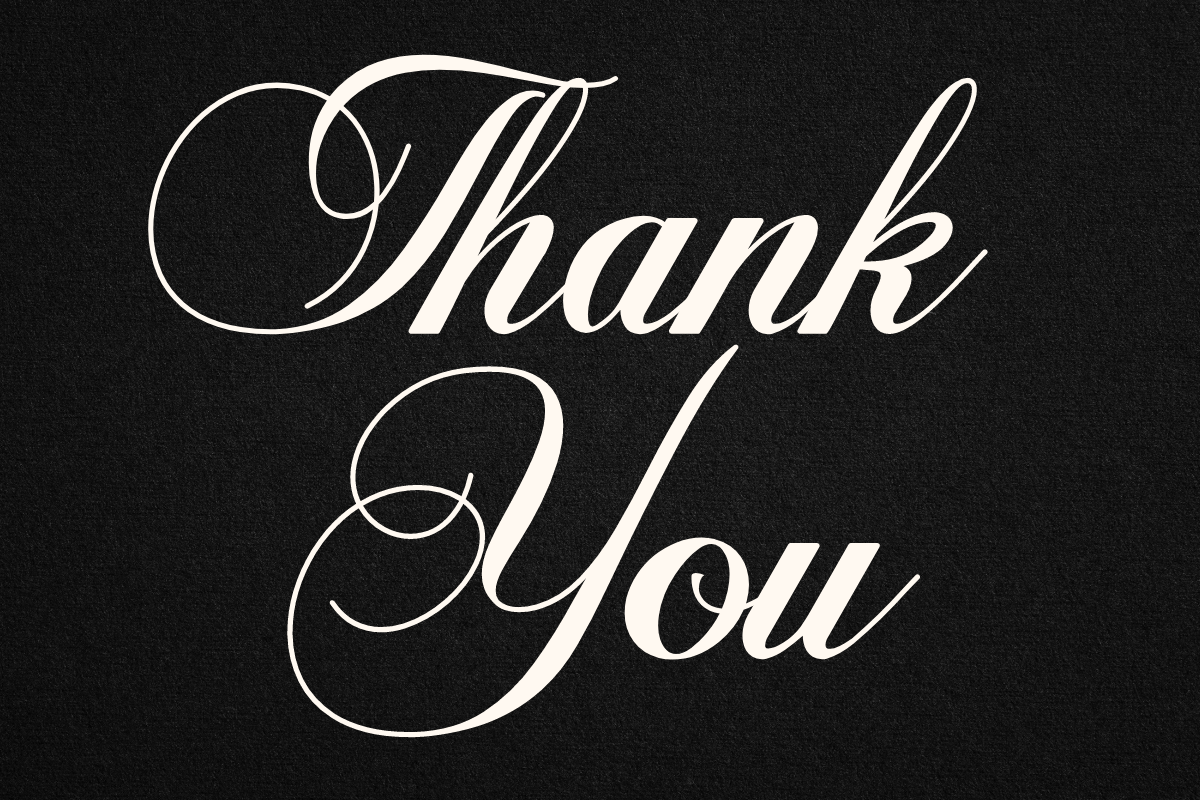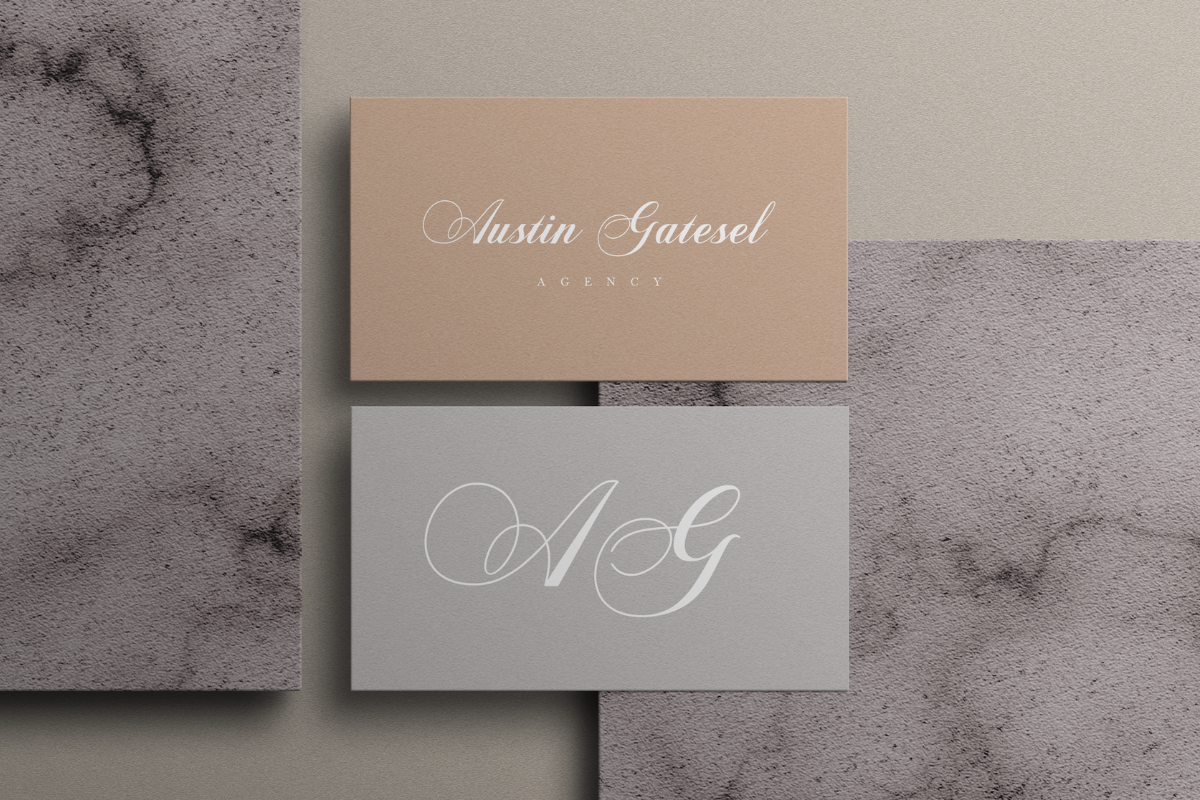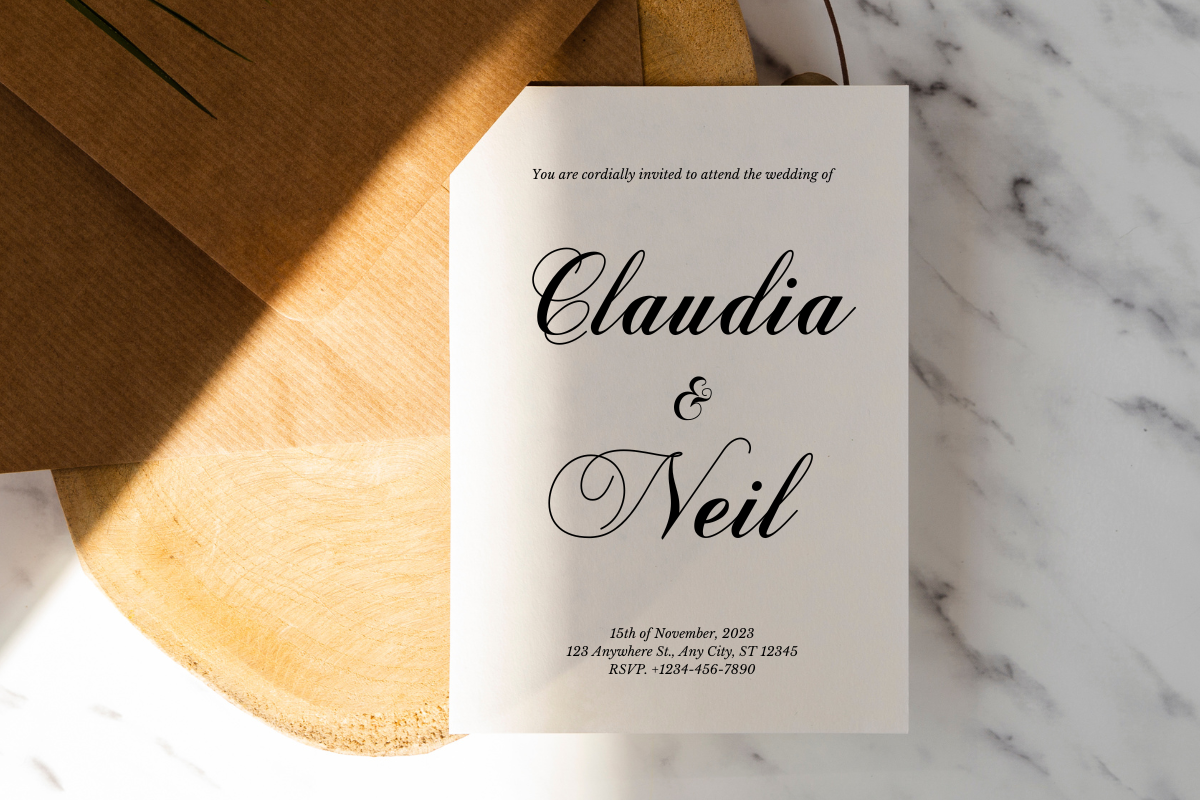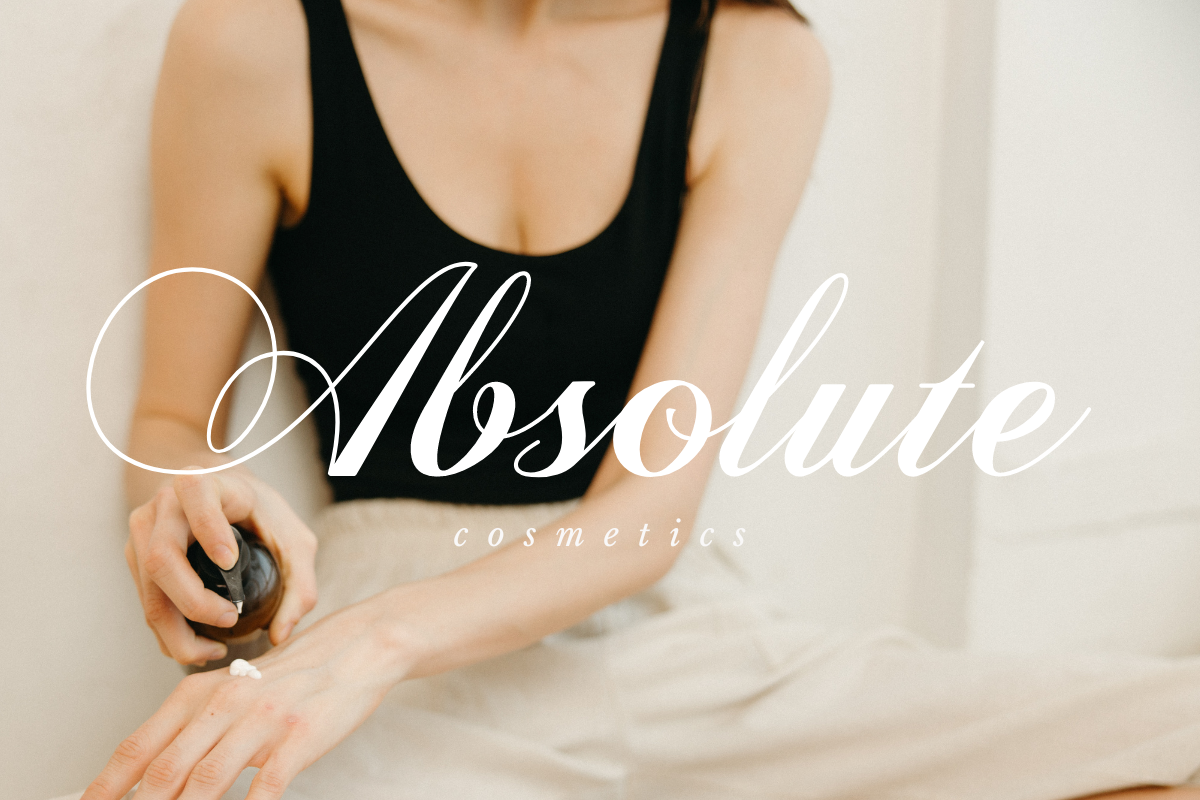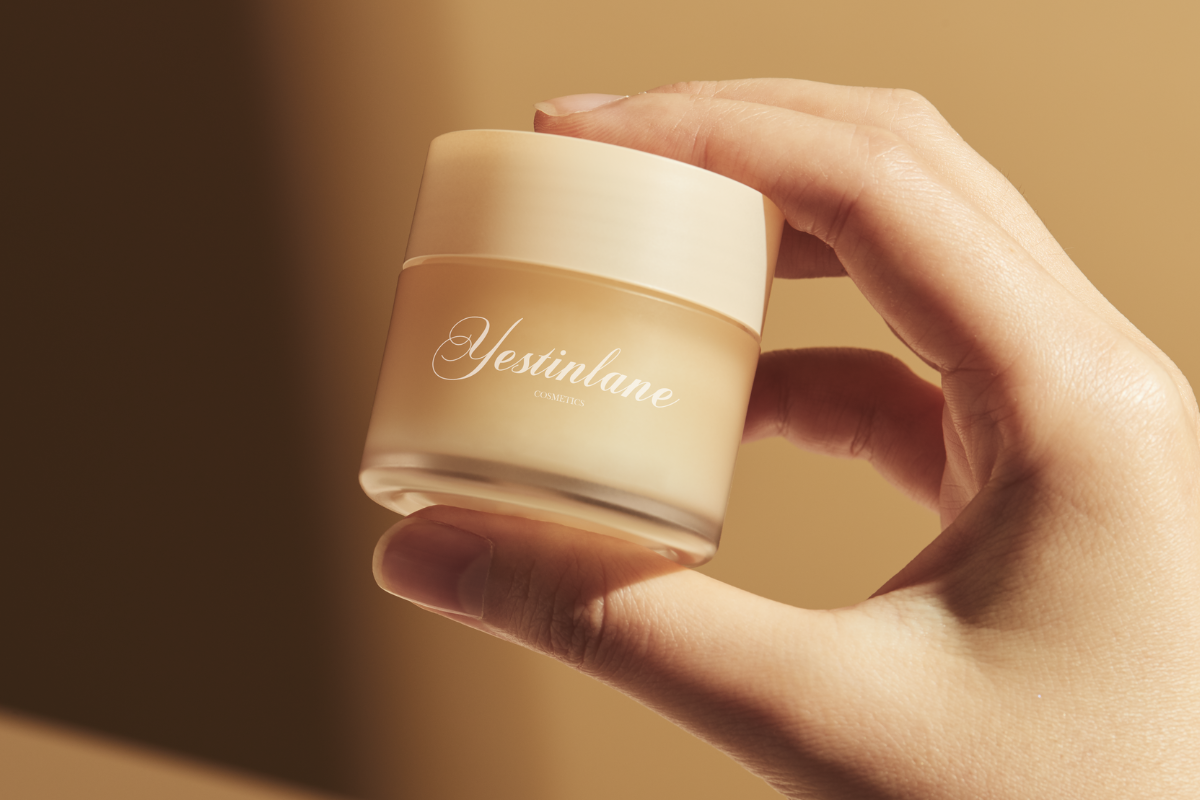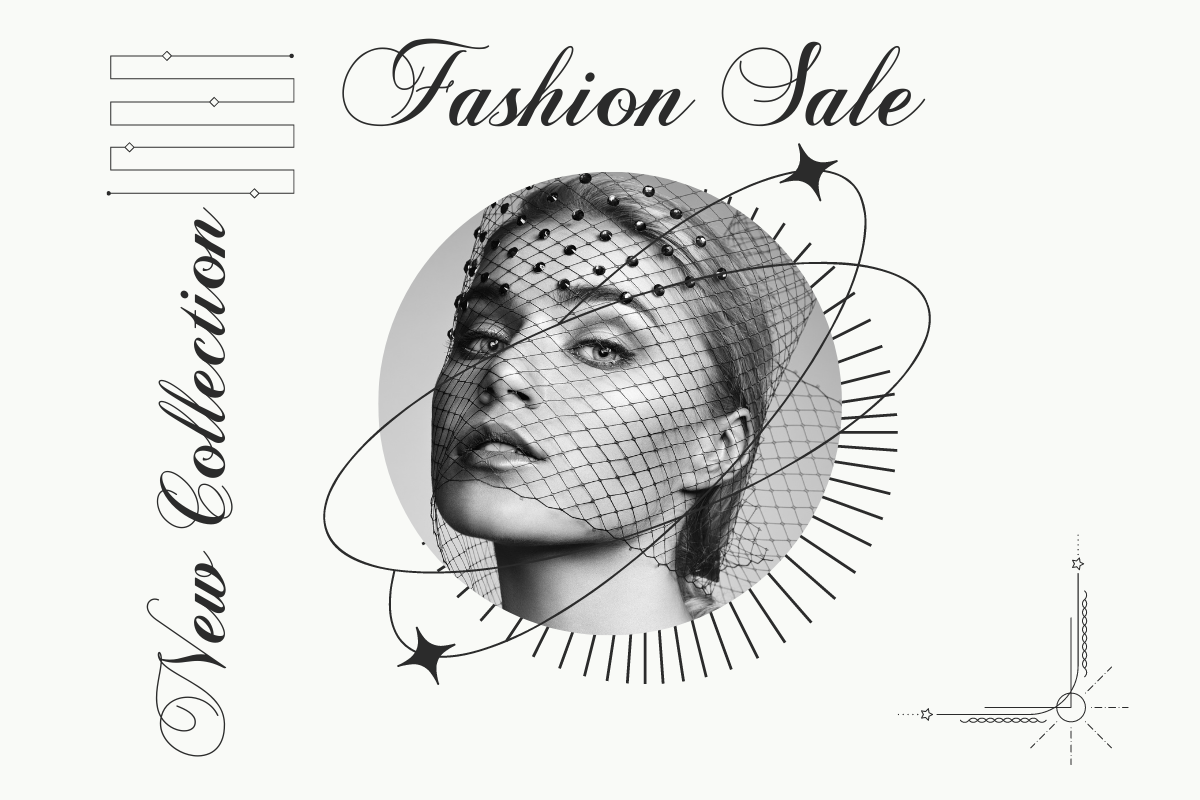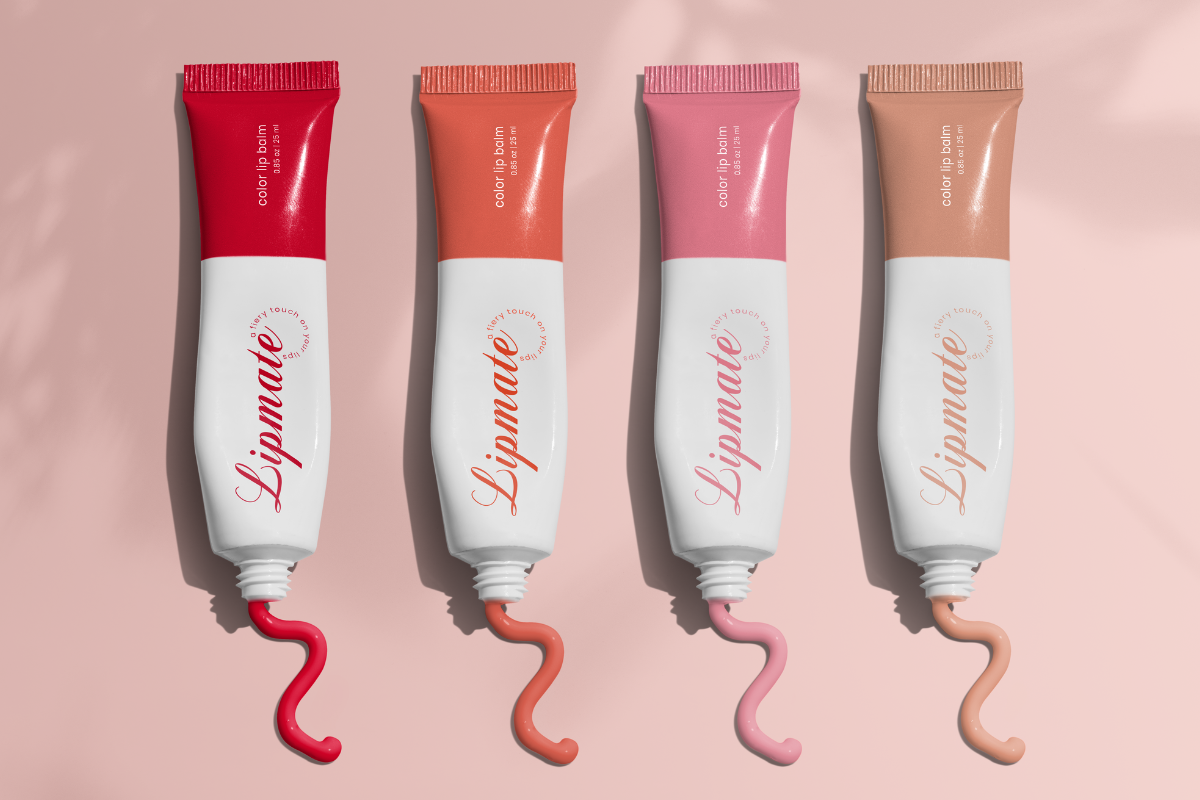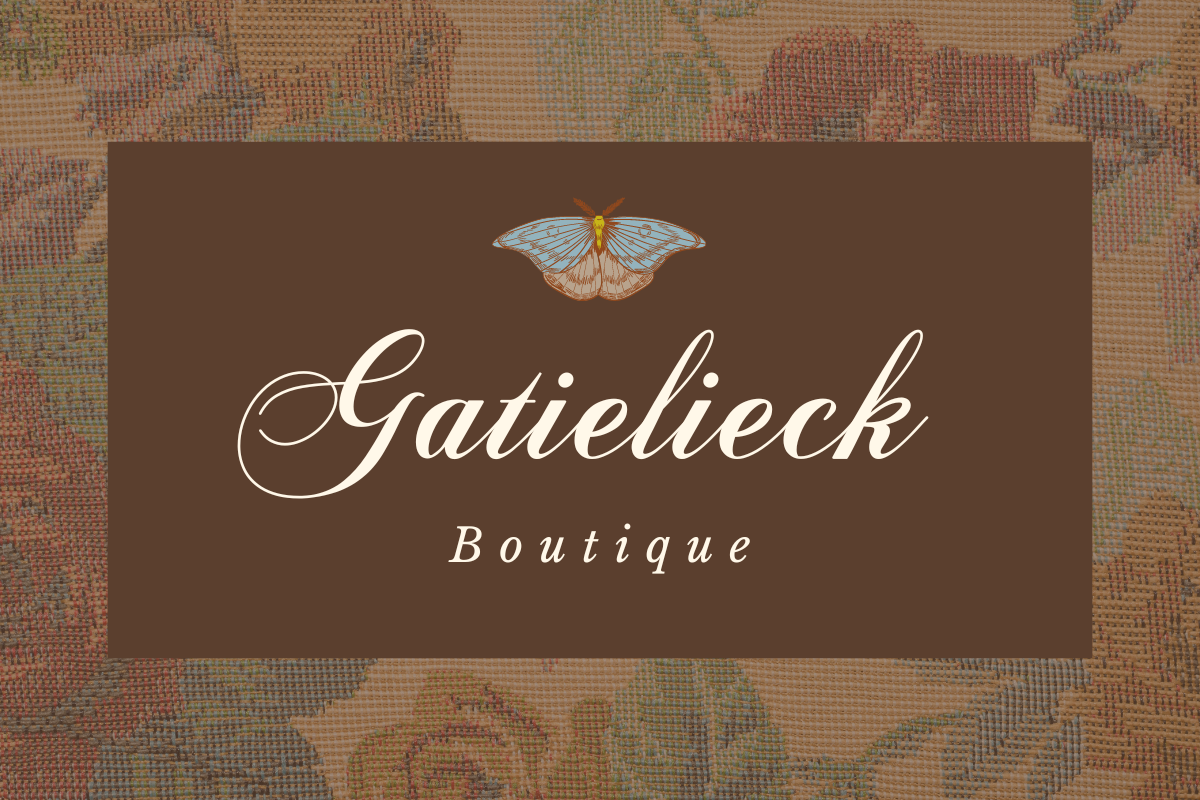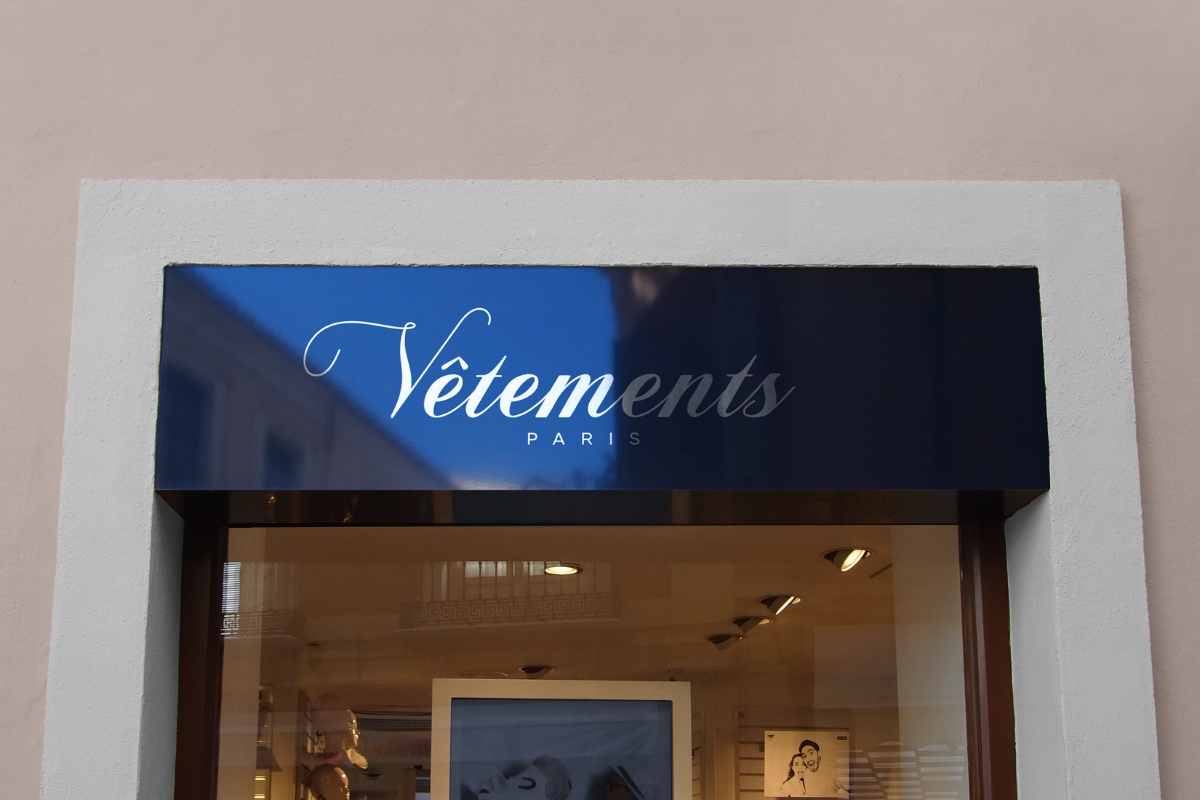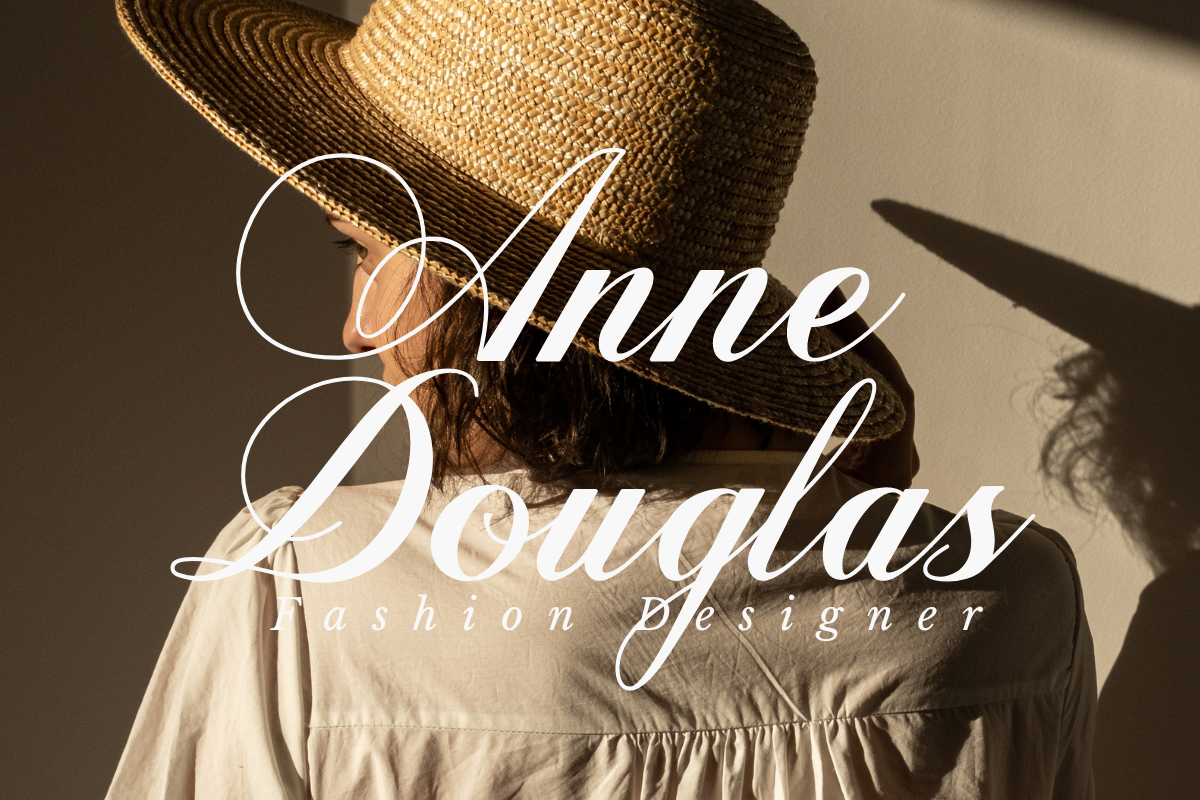
Deutschlands – Old Style Calligraphy
Deutschlands – is Old Style Calligraphy font.
This font is made in a modern style, very casual, and suitable for your various design needs. It’s perfect for logo, branding, title, social media posts, advertisements, product packaging, product designs, label, photography, watermark, special event, magazine, web design, etc.